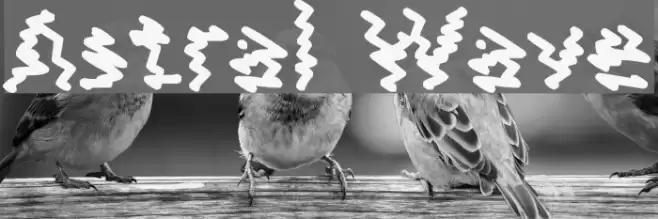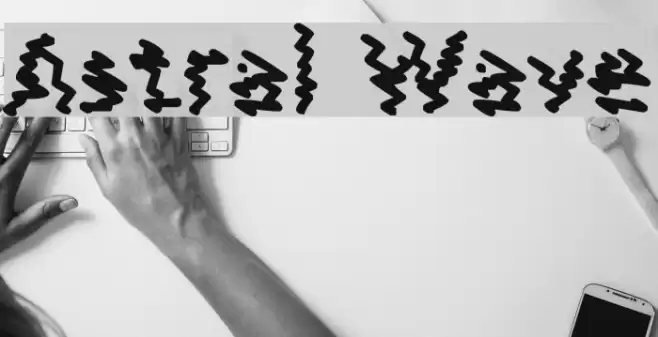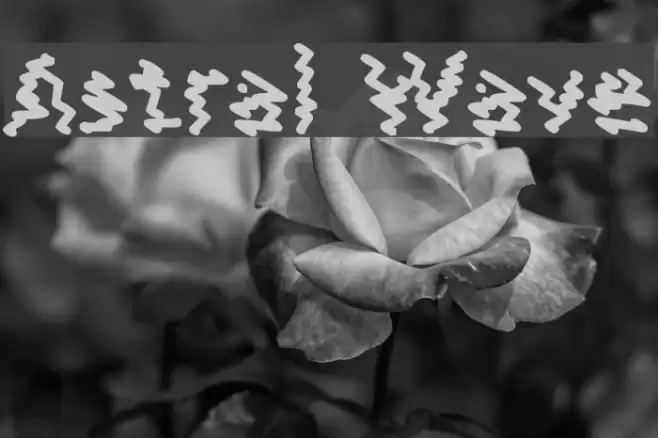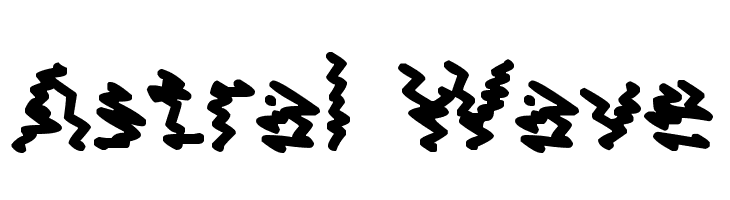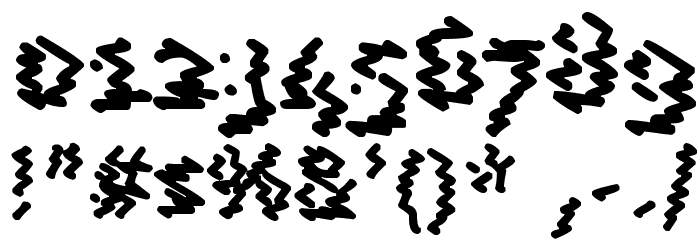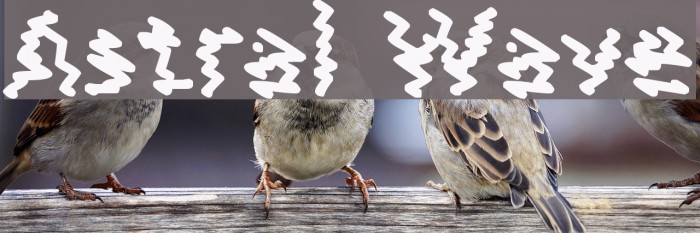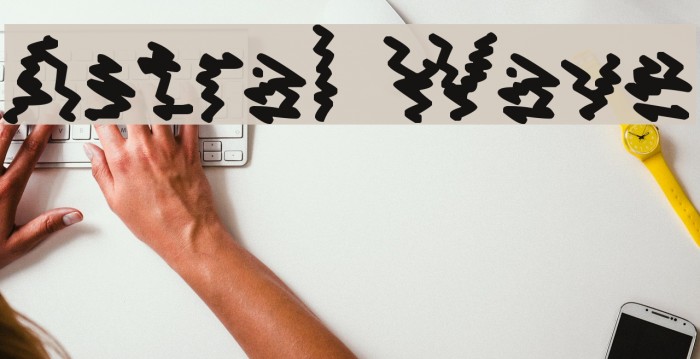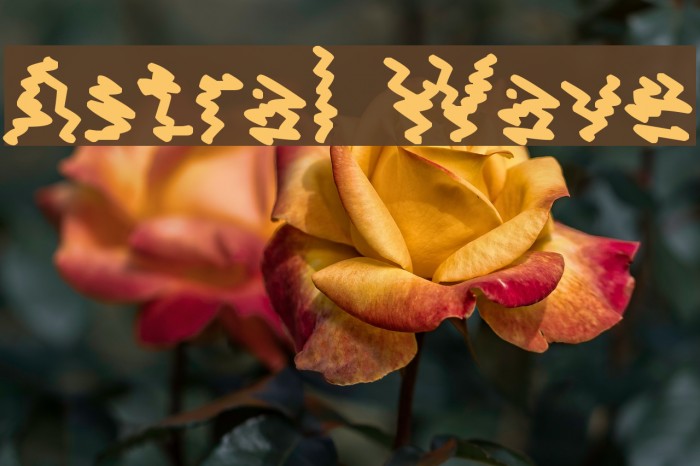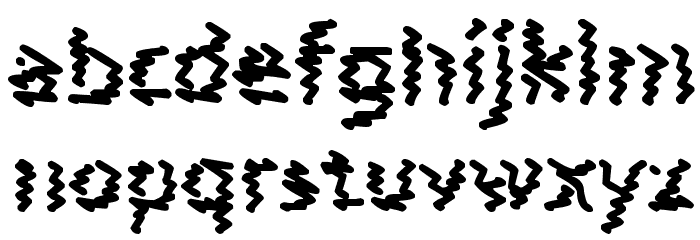
Astral Wave Font
Astral Wave Description
This font features a unique, wavy design that gives each character a dynamic and fluid appearance. The letters are composed of zigzag patterns, creating a sense of movement and energy. This style is highly decorative, making it stand out with its bold and artistic flair. The uppercase and lowercase letters maintain a consistent style, with the same wavy pattern applied throughout. Numbers and special characters follow the same design principles, ensuring uniformity across all glyphs. The font's playful and unconventional look makes it suitable for creative projects that require a distinctive and eye-catching typeface.
A dynamic, wavy font with a bold, decorative style from Distorted Eroded fonts.
- Proposed Projects: Ideal for posters, album covers, creative branding, and artistic projects.